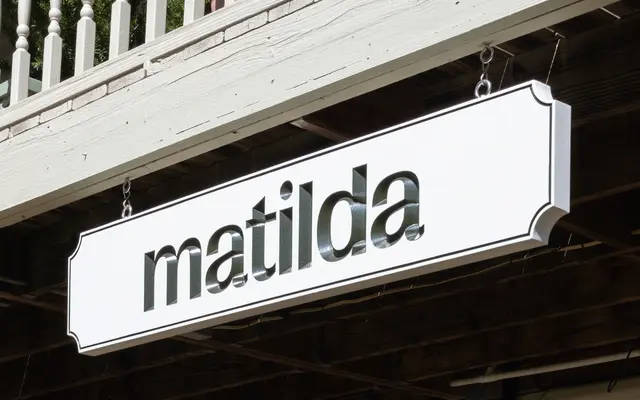
Right Grotesk
Pangram Foundry · Alex Slobzheninov · 2020
A large grotesque collection by Alex Slobzheninov spanning 11 sub-families and 130 styles, built to work across display and text settings with a mild personality that sits between neutral and characterful.
Right Grotesk is structured around seven display cuts and four text cuts, each available in 14 or 8 styles respectively, plus variable font versions, with full Cyrillic support throughout. Smooth curves, moderate contrast and small anatomical quirks give it enough character to distinguish itself from pure utility grotesques without tipping into eccentricity. The width range, from Narrow and Compact through to Wide and Spatial, makes it adaptable across branding, editorial and screen work.
A grotesque sans-serif with moderate contrast and slightly unusual anatomical details, sitting between neutral workhorse grotesques and more characterful designs. Pangram classify it under Grotesk and Sans Serif.